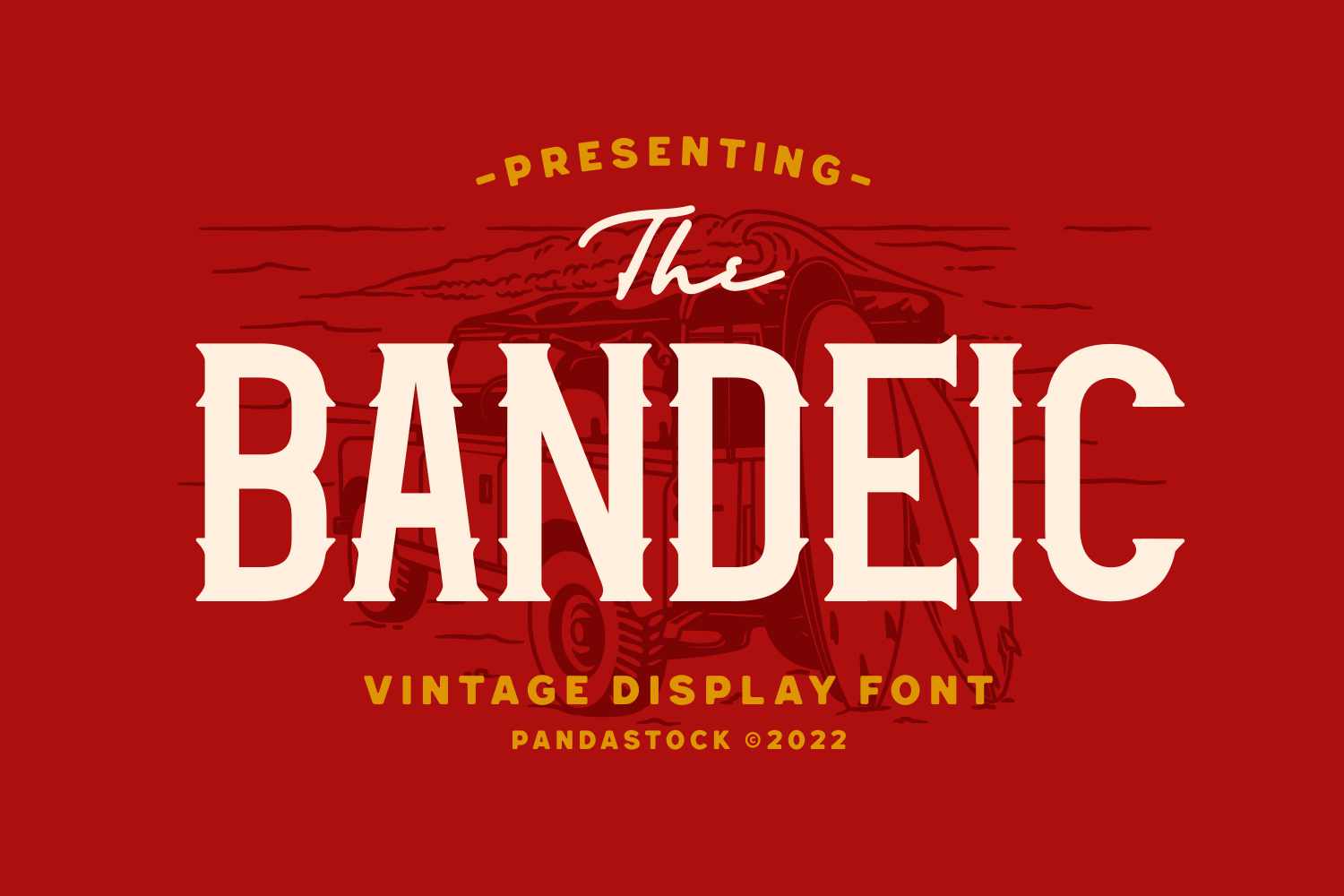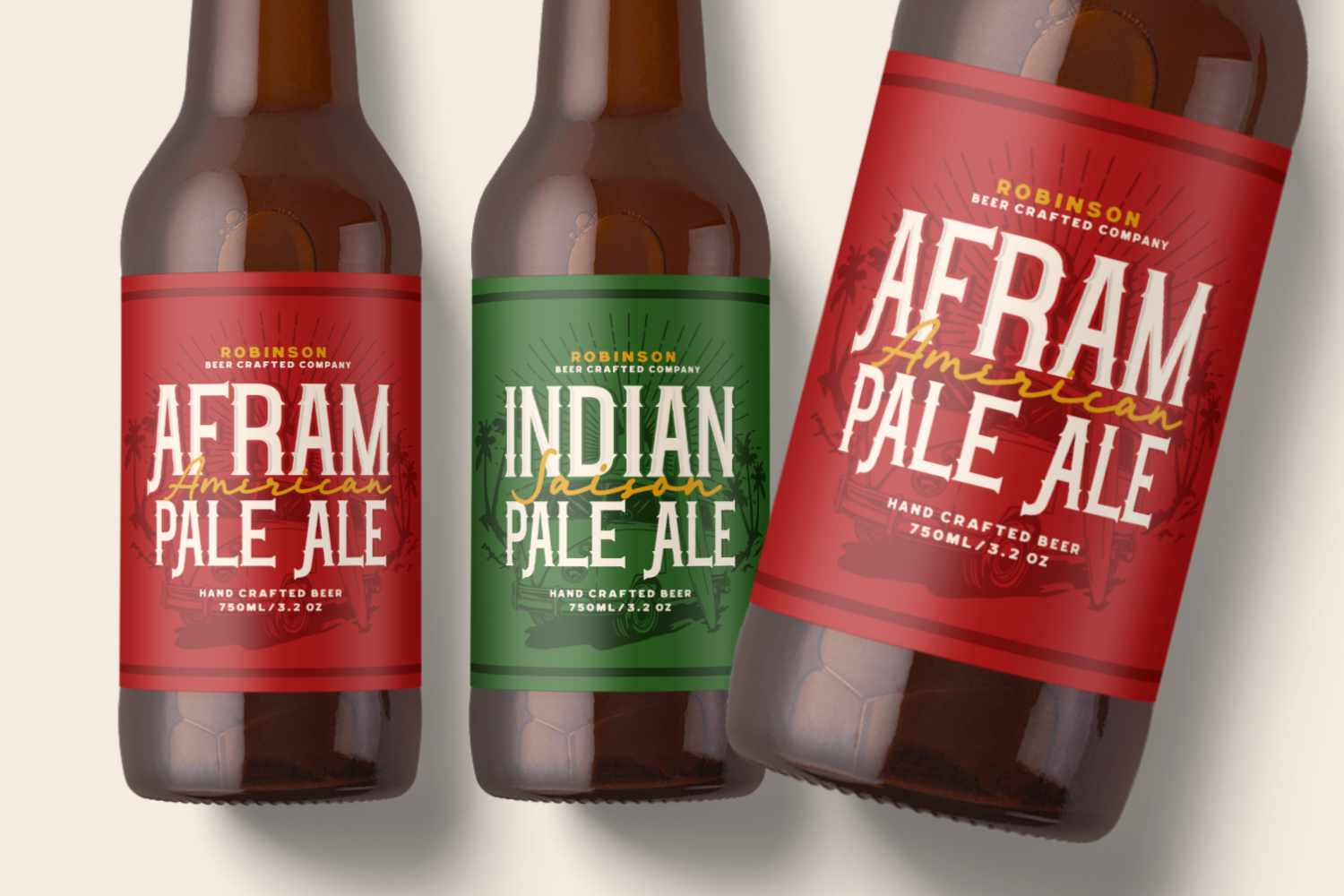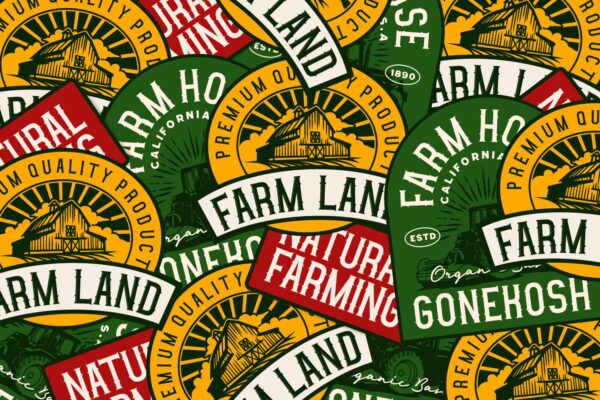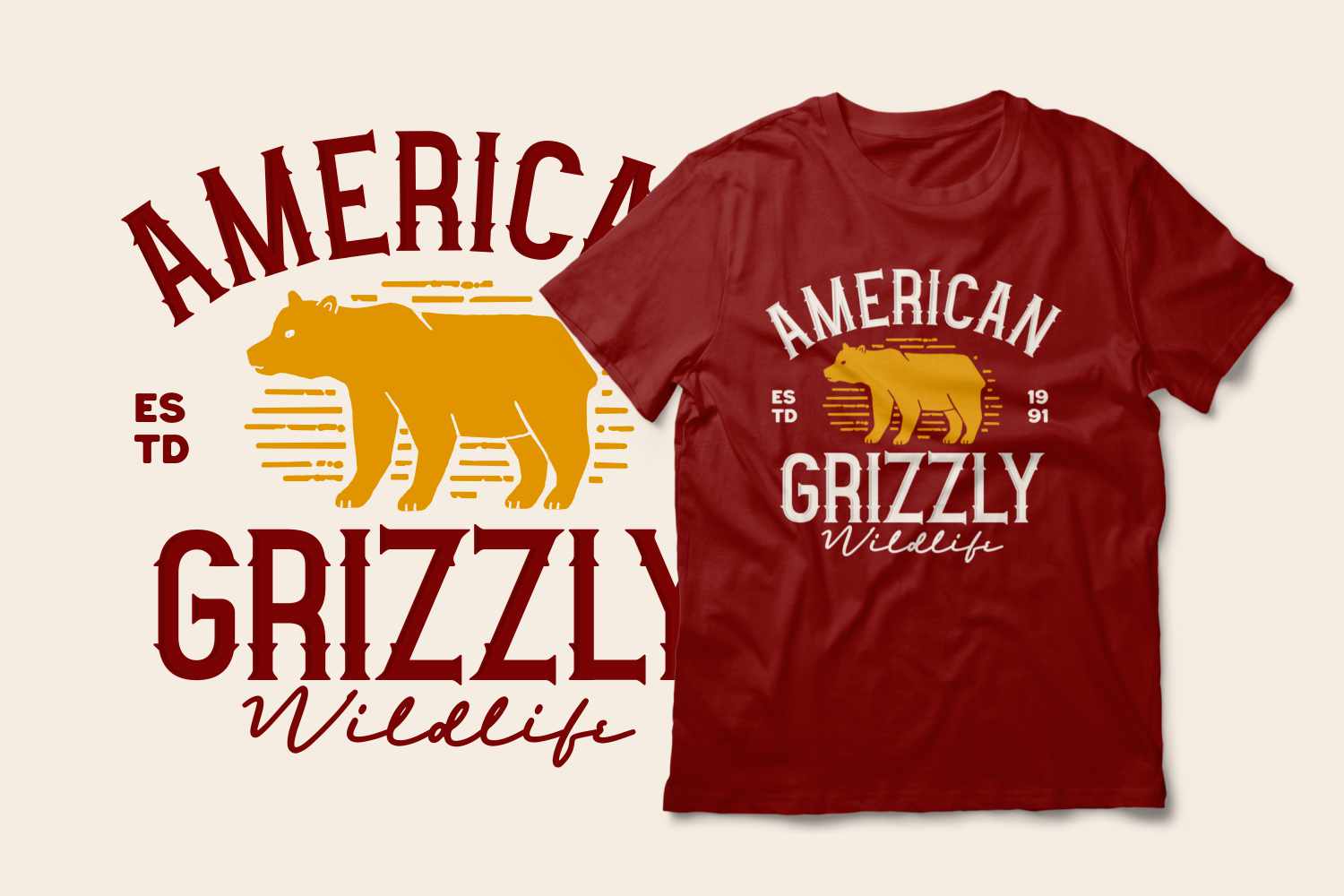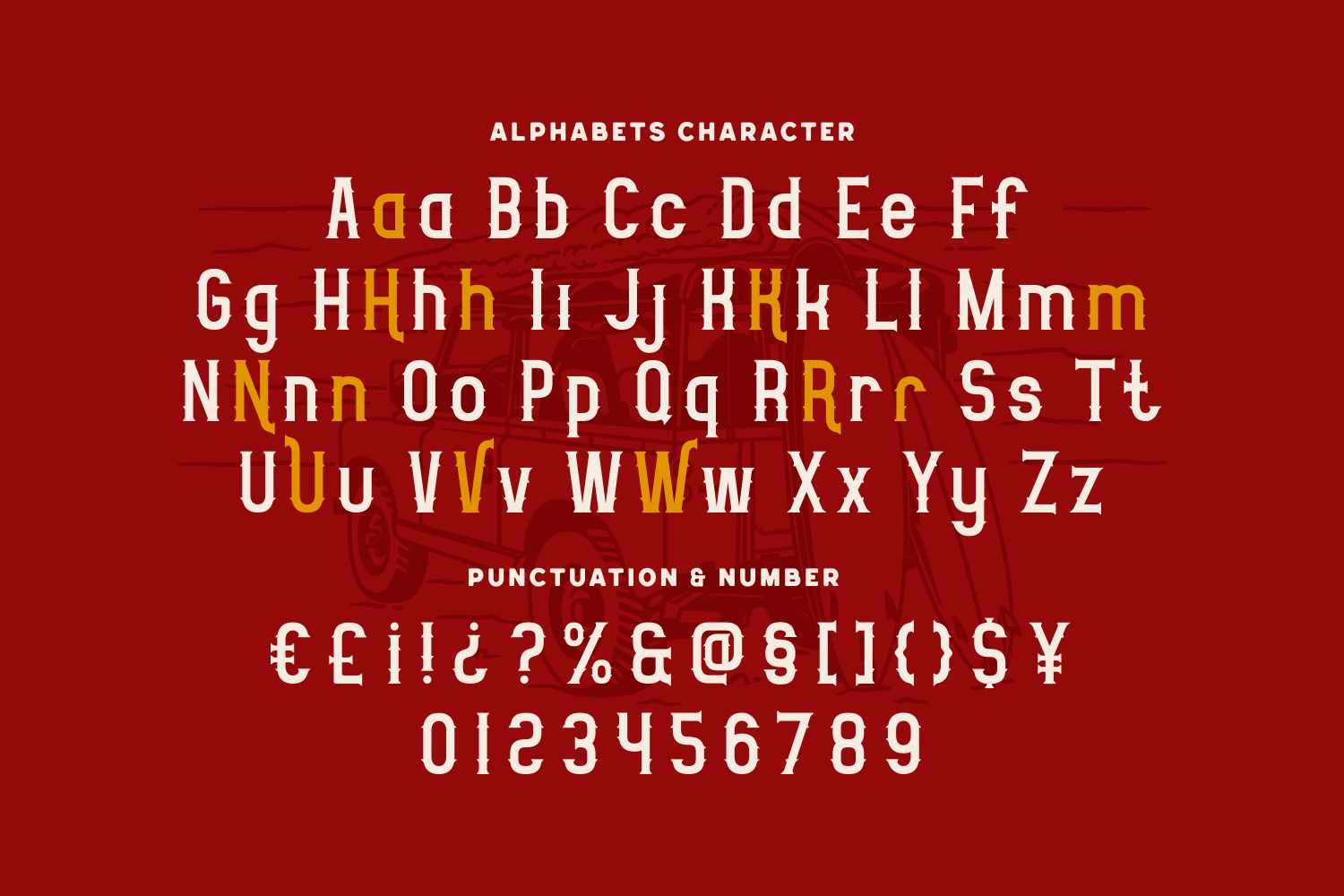
Bandeic is a bold vintage display font that brings a strong, rustic personality to your designs. Its tall, sturdy letterforms are inspired by classic woodcut typography and traditional sign painting, making it a perfect choice for projects that need an authentic retro vibe. The sharp edges and distinctive serifs give it a handcrafted aesthetic while maintaining readability in both large titles and medium-sized text.
Ideal for beer labels, farm branding, outdoor gear, and retro apparel, Bandeic captures a sense of heritage and timeless craftsmanship. Whether used on packaging, logos, posters, or t-shirt graphics, this font adds a bold and confident character that stands out. It’s versatile for both digital and print projects, making it a reliable choice for designers aiming to blend tradition with modern visual storytelling.
Bandeic